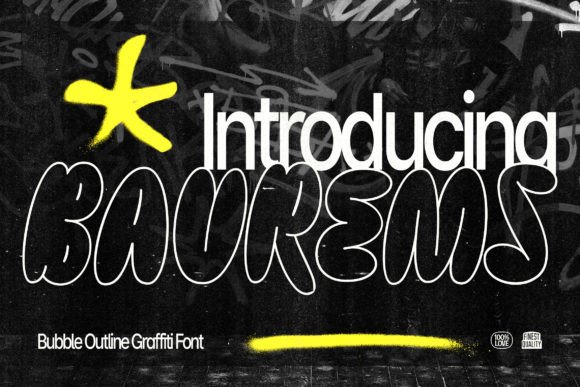
Introducing Baurems Font, a captivating display font that emanates the vibrant energy of the '90s graffiti era and the Y2K aesthetic. Inspired by the audacious spirit of street art, Baurems Font embodies the essence of urban culture, invoking a sense of nostalgia and rebellion.
Unleash your creativity with Baurems Font, a visual masterpiece that seamlessly blends the raw energy of spray paint with the sophistication of mixed media. Its bold and expressive characters exude a distinct personality, making it the perfect choice for designers seeking to make a statement.
With Baurems Font, you'll embark on a journey through time, where the past and present converge. Its unique style evokes the rebellious spirit of the '90s graffiti scene while embracing the contemporary trends of urban fashion and streetwear.
Dive into a world of boundless possibilities with Baurems Font. Create eye-catching posters that captivate your audience, design logos that leave a lasting impression, and craft branding that resonates with the urban spirit. Elevate your streetwear designs with a touch of edgy elegance, or infuse your clothing line with the vibrant energy of the streets.
Embrace the versatility of Baurems Font and explore its limitless applications. From fashion and apparel to graphic design and beyond, this font is your creative companion, ready to transform your visions into reality.
Dare to be different, dare to stand out. Choose Baurems Font and let your designs speak volumes. Its bold, expressive characters will command attention, leaving an indelible mark on your audience's minds.